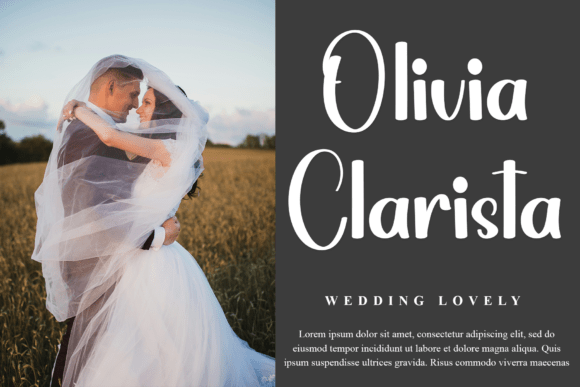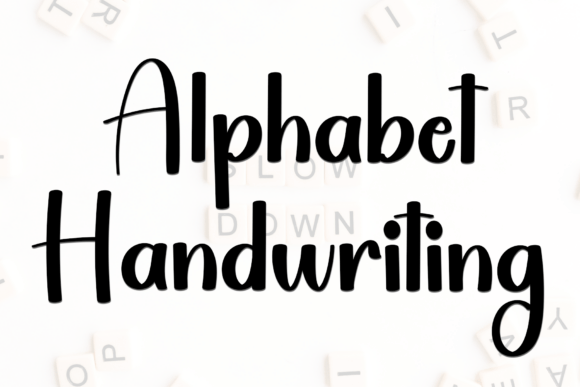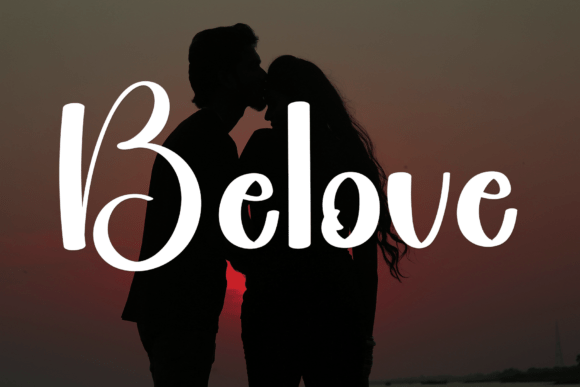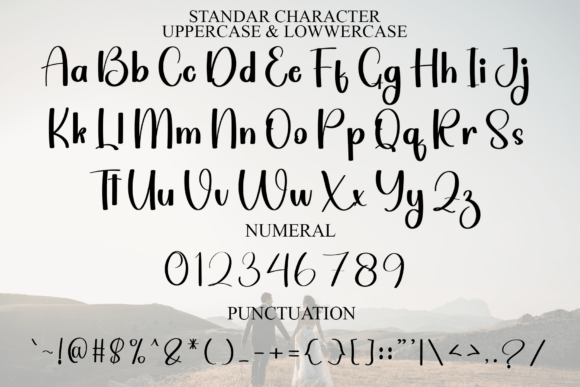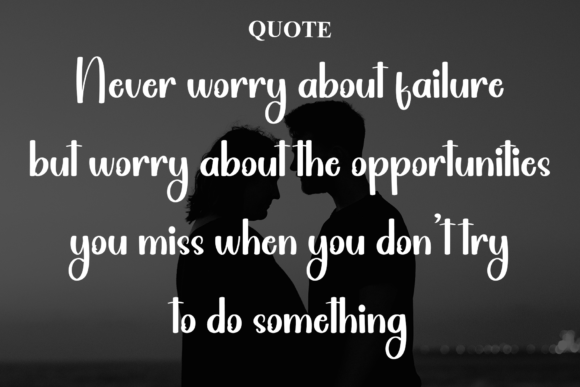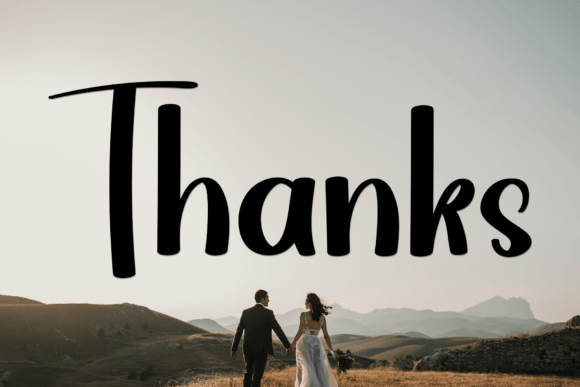
Introducing Happy Wedding Font: Elevate Your Designs with a Touch of Elegance
Are you a designer, crafter, or creative looking for a unique and captivating font to elevate your projects? Look no further than the Happy Wedding Font, a beautiful and eye-catching typeface designed with a soft, distinctive touch. This stunning font is perfect for a wide range of design applications, from wedding invitations and crafts to digital projects and more.
A Font that Stands Out: Unique Characteristics and Versatility
The Happy Wedding Font boasts distinctive strokes that give it a special character, making it both meaningful and versatile for future use. Its unique design ensures that your projects will stand out from the crowd, capturing the attention of your audience and leaving a lasting impression. With a wide range of characters, this font is perfect for various design projects, crafts, and other creative works.
Endless Design Possibilities: Where to Use Happy Wedding Font
The Happy Wedding Font is perfect for a variety of design projects, including:
- Wedding Invitations and Stationery: Add a touch of elegance and sophistication to your wedding invitations, save-the-date cards, and other stationery.
- Crafts and DIY Projects: Use the Happy Wedding Font to create beautiful and unique crafts, such as handmade cards, gift tags, and decorations.
- Digital Projects: Elevate your digital projects, including social media graphics, blog posts, and website designs, with this stunning font.
- Marketing and Advertising: Make your marketing materials stand out with the Happy Wedding Font, perfect for brochures, flyers, and other promotional materials.
Why Choose Happy Wedding Font?
So, why choose the Happy Wedding Font for your design projects? Here are just a few reasons:
- Unique and Eye-Catching: This font is designed to capture attention and leave a lasting impression.
- Versatile: Use it across various design projects, crafts, and creative works.
- Elegant and Sophisticated: Add a touch of elegance and sophistication to your designs.
Get Ready to Elevate Your Designs with Happy Wedding Font
In conclusion, the Happy Wedding Font is a beautiful and versatile typeface that is perfect for designers, crafters, and creatives looking to elevate their projects. With its unique characteristics, compatibility with various applications, and endless design possibilities, this font is sure to become a staple in your design toolkit. So, what are you waiting for? Download the Happy Wedding Font today and start creating stunning designs that will capture the attention of your audience!
The Happy Wedding Font is a game-changer for designers and crafters looking to add a touch of elegance and sophistication to their projects. Its unique design, versatility, and compatibility make it the perfect choice for a wide range of design applications. Whether you’re working on a wedding invitation, craft project, or digital design, this font is sure to impress. So, don’t miss out on this amazing opportunity to elevate your designs – get your hands on the Happy Wedding Font today!